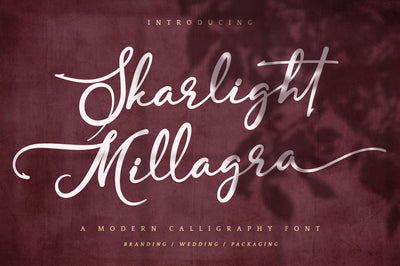
Skarlight Millagra Romantic Script Font
An elegant calligraphy script font. Perfect for making elegant stylish statements - or adding a touch of class to your designs. This script has a multitude of natural-looking ligatures in its OpenType features - making the font look as close to natural handwriting as possible.
Skarlight Millagra is perfect for many different project such as logos & branding, invitation, stationery, wedding designs, social media posts, advertisements, product packaging, product designs, label, photography, watermark, special events or anything.